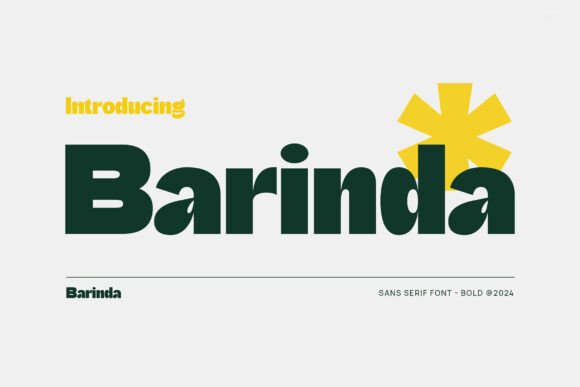
Introducing Barinda Font: A Bold Sans Serif for High-Impact Designs
In the world of typography, fonts play a crucial role in conveying messages, expressing emotions, and creating visual identities. For designers, finding the perfect font that combines aesthetics, readability, and versatility can be a daunting task. However, if you’re looking for a bold sans serif font that makes a statement, look no further than Barinda Font. In this article, we’ll explore the features, benefits, and uses of Barinda Font, and why it’s an excellent choice for your next design project.
What is Barinda Font?
Barinda Font is a bold sans serif font designed with a distinctive geometric build and high visual impact. Its strong curves, wide proportions, and modern aesthetic make it an ideal choice for designs that require a confident and attention-grabbing look. Whether you’re working on branding, packaging, posters, or editorial headlines, Barinda Font is sure to make your design stand out.
Key Features of Barinda Font
- Geometric Build: Barinda Font features a geometric build that gives it a modern and sleek look. Its clean lines and curves create a sense of sophistication and elegance.
- Strong Curves: The font’s strong curves add a touch of warmth and friendliness to its overall aesthetic. This makes it perfect for designs that require a balance of professionalism and approachability.
- Wide Proportions: Barinda Font’s wide proportions ensure that each letterform is clear and legible, even at large sizes. This makes it ideal for headlines, titles, and other display text.
- Modern Aesthetic: The font’s modern aesthetic is perfect for designs that require a fresh and contemporary look. Its clean lines, simple shapes, and bold curves create a sense of innovation and forward thinking.
- Smooth Letterforms: Barinda Font’s smooth letterforms ensure readability and make it easy to read, even at small sizes. This makes it perfect for body text, captions, and other small text applications.
Benefits of Using Barinda Font
So, why choose Barinda Font for your next design project? Here are just a few benefits of using this versatile font:
- High-Impact Designs: Barinda Font is designed to make a statement. Its bold curves and wide proportions ensure that your design grabs attention and leaves a lasting impression.
- Versatility: Barinda Font is a versatile font that can be used for a wide range of design applications, from branding and packaging to posters and editorial headlines.
- Readability: The font’s smooth letterforms and wide proportions ensure readability, making it perfect for designs that require a clear and concise message.
- Confidence: Barinda Font exudes confidence and sophistication, making it perfect for designs that require a bold and assertive look.
Uses of Barinda Font
Barinda Font is a versatile font that can be used for a wide range of design applications. Here are just a few examples:
- Branding: Use Barinda Font to create bold and memorable brand identities that make a statement.
- Packaging: Barinda Font is perfect for packaging designs that require a clear and attention-grabbing look.
- Posters: Use Barinda Font to create eye-catching posters that grab attention and communicate your message effectively.
- Editorial Headlines: Barinda Font is ideal for editorial headlines that require a bold and confident look.
Tips for Using Barinda Font
Here are a few tips for using Barinda Font effectively in your designs:
- Use it boldly: Barinda Font is designed to make a statement, so don’t be afraid to use it boldly. Experiment with large sizes and bold weights to create high-impact designs.
- Pair it with contrasting fonts: Barinda Font pairs well with contrasting fonts that have a more traditional or elegant look. Experiment with different font combinations to create visually appealing designs.
- Experiment with colors: Barinda Font looks great in a wide range of colors. Experiment with different colors and gradients to create designs that pop.
In conclusion, Barinda Font is a bold sans serif font that is perfect for designs that require a high-impact look. Its geometric build, strong curves, wide proportions, and modern aesthetic make it an ideal choice for branding, packaging, posters, and editorial headlines. With its smooth letterforms and readability, Barinda Font is a versatile font that can be used for a wide range of design applications. So why not give Barinda Font a try and see how it can elevate your designs?